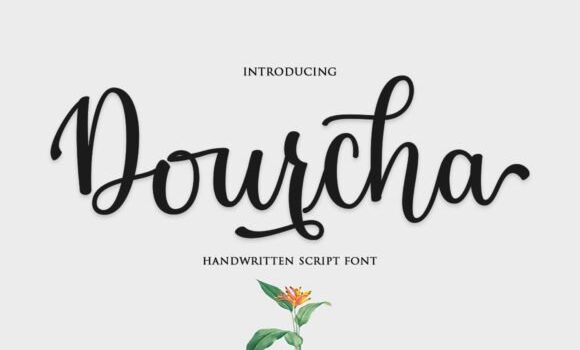
Dourcha Font – Free Download Introduction to Dourcha Font The Dourcha is a modern script font. 📸 Preview Gallery 6 images 📌 Product Name Dourcha Font 👤 Author Attract Studio 📂 Category Explore ⬇️ Download Dourcha Font FREE Free Download